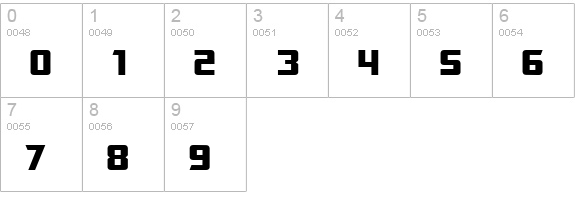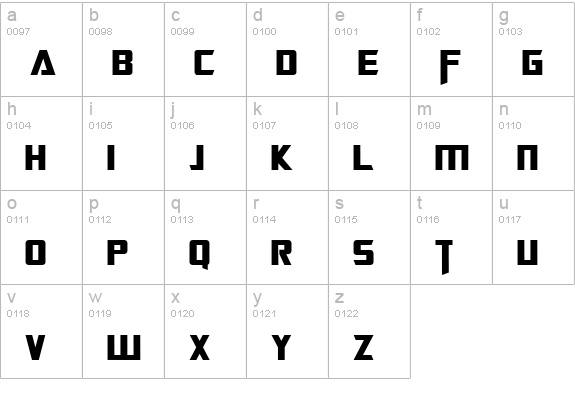
The Transformers font, a truly mesmerizing and electrifying typographic creation, is here to bring your designs to life with its dynamic and futuristic appeal. Inspired by the iconic Transformers franchise, this font embodies the essence of mechanical precision and robotic sophistication. With its sleek and angular letterforms, the Transformers font showcases a unique combination of sharp edges and smooth curves, perfectly capturing the essence of the transforming robots that have captured the hearts of millions. Each character exudes power and authority, reflecting the strength and resilience of these mighty machines. Whether you are designing a movie poster, a video game logo, or even a sci-fi book cover, the Transformers font is the perfect choice to infuse your project with an aura of technological marvel. Its versatility allows it to seamlessly blend into any design concept, from action-packed adventures to futuristic utopias. And the best part? The Transformers font is available for free download exclusively at FontsMarket.com. This means that you can unleash the power of this incredible typeface in your projects without any cost, making it accessible to all designers, regardless of budget or resources. So, what are you waiting for? Embrace the power of the Transformers font and let your creative visions soar to new heights. Download this awe-inspiring font today and witness the magic it brings to your designs. Remember, it's freely available at FontsMarket.com, where creativity knows no bounds.